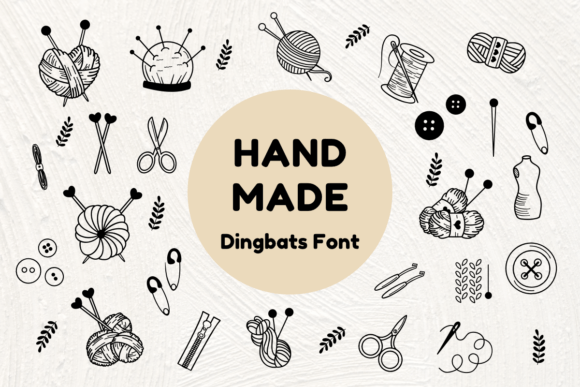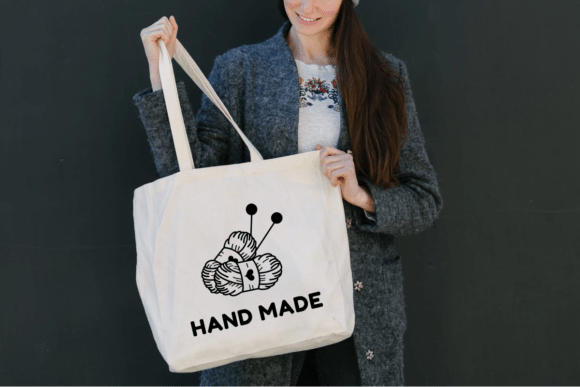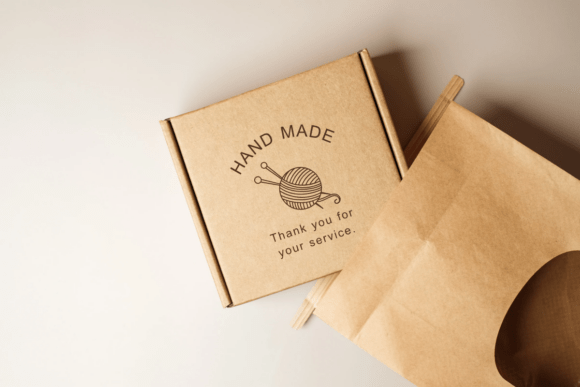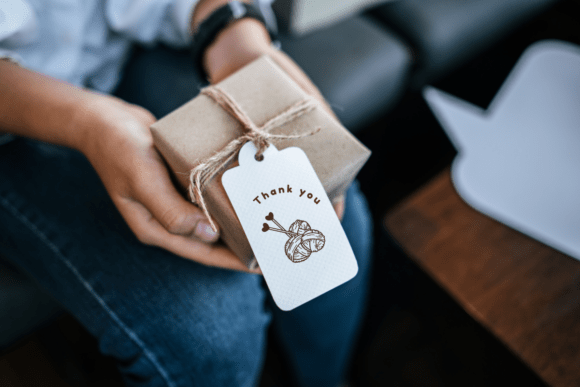
Hand Made Font
About the Hand Made Font
Make a bold statement with Hand Made Font, a powerful and memorable font. Hand Made is a dingbats font with a sketched style. This font can enhance your creative projects such as wedding invitations, DIY, crafts, decorations, logos, and many other creative ideas.
Hand Made’s sketched style works best for headlines, logos, short text blocks on packaging, and social media graphics where its handcrafted charm adds visual interest. It’s less suitable for body text or long-form content due to its low readability at smaller sizes. Avoid using it in UI design or situations requiring high legibility.
Its personality is playful and approachable, making it ideal for brands targeting a younger demographic or those with a handmade/artisan aesthetic. Consider pairing it with a clean sans-serif like Open Sans for contrast and readability, or a more refined serif like Lora for a touch of elegance.
For a bolder look, a geometric sans-serif like Montserrat could work well. Avoid pairing it with other highly decorative fonts, as this will overwhelm the design.
Hand Made Font Usage Examples
Hand Made Font Example